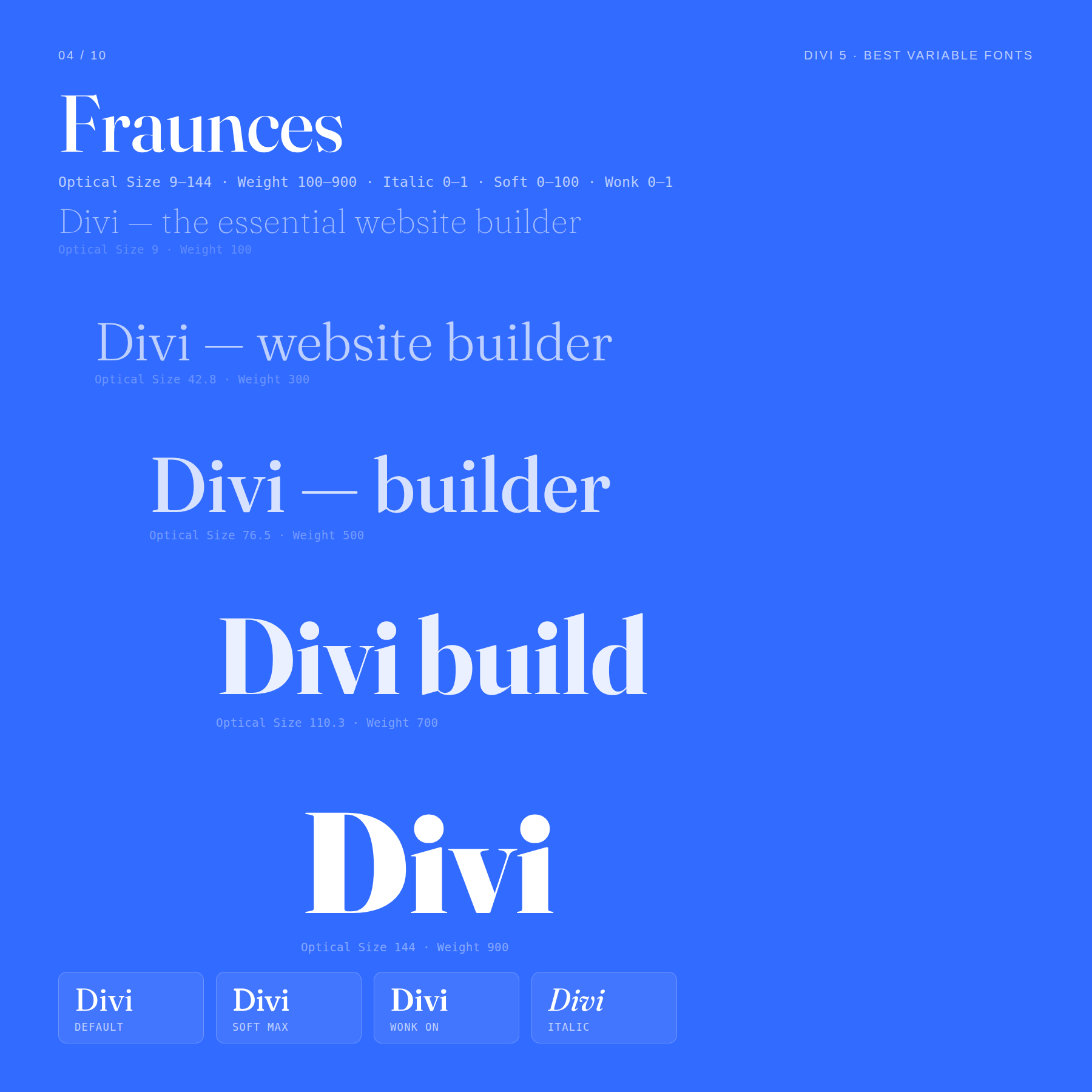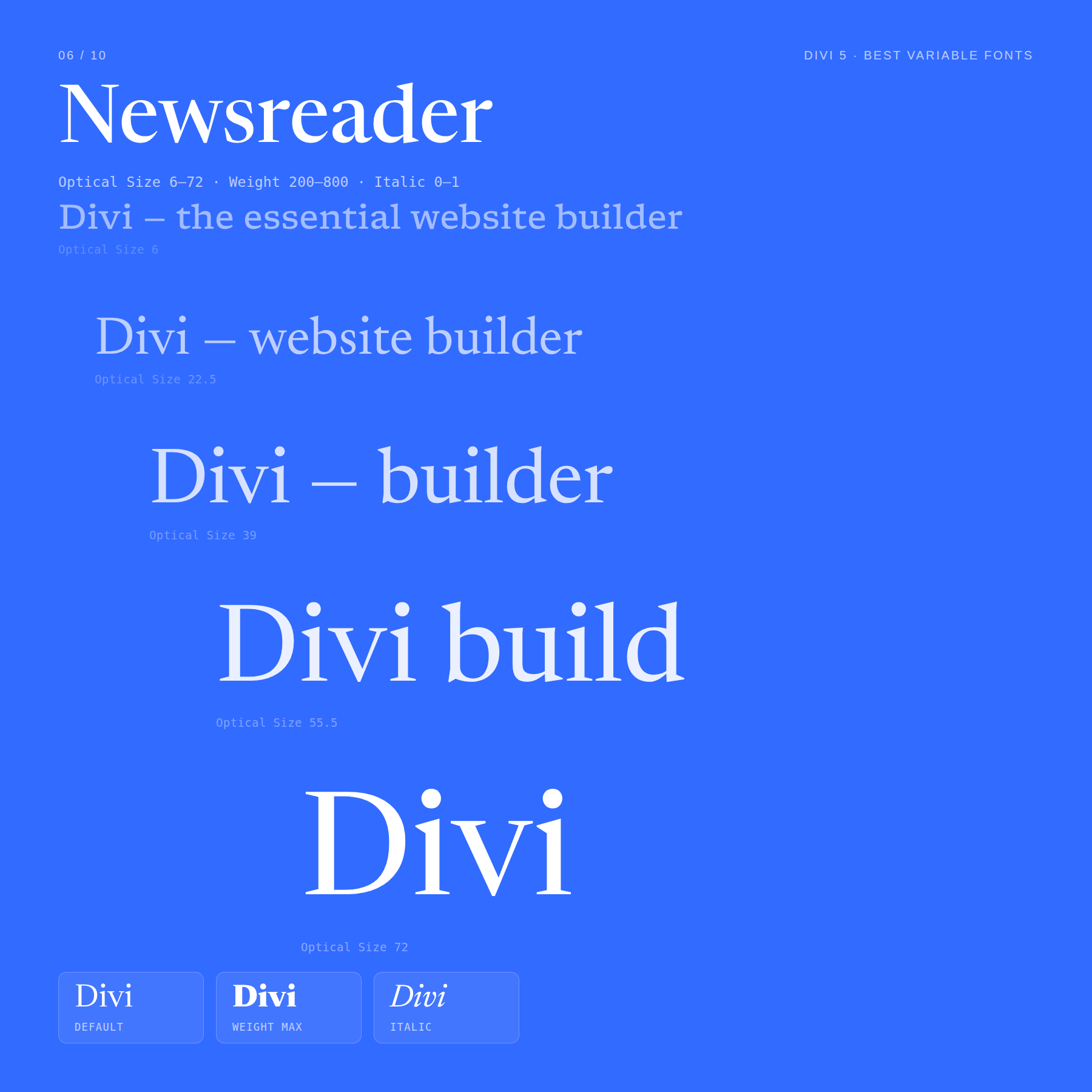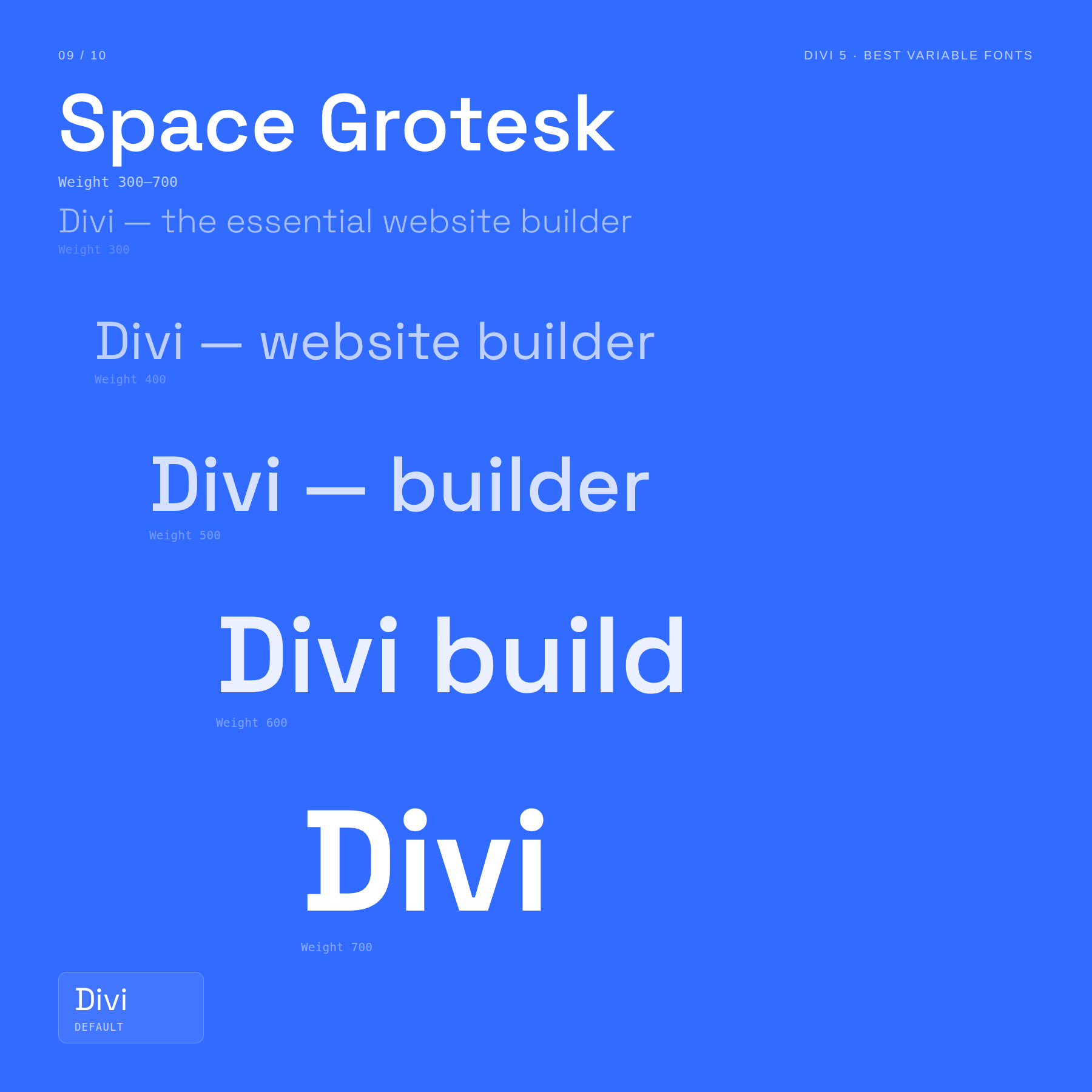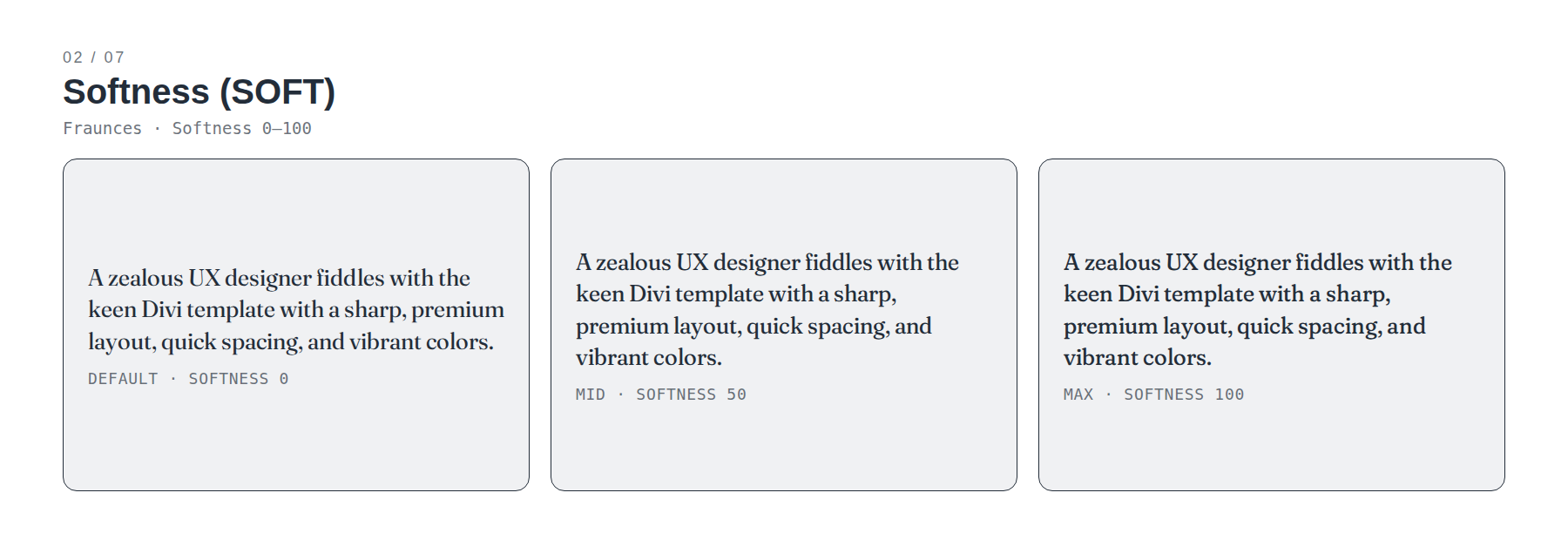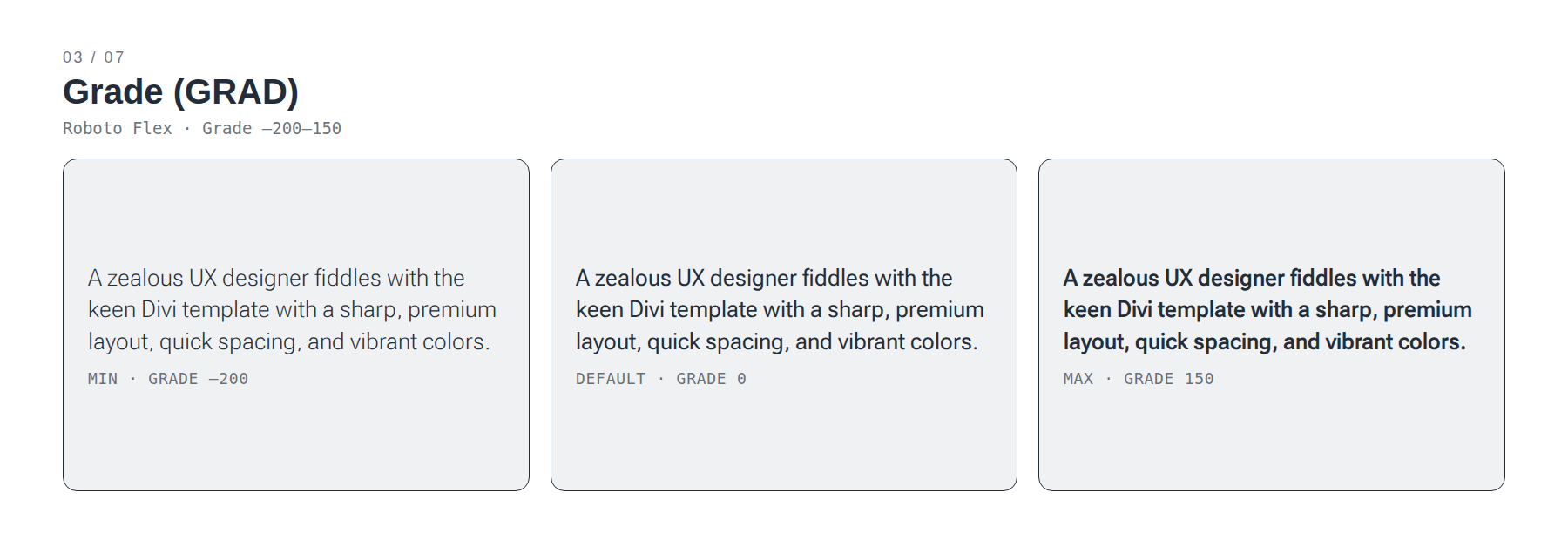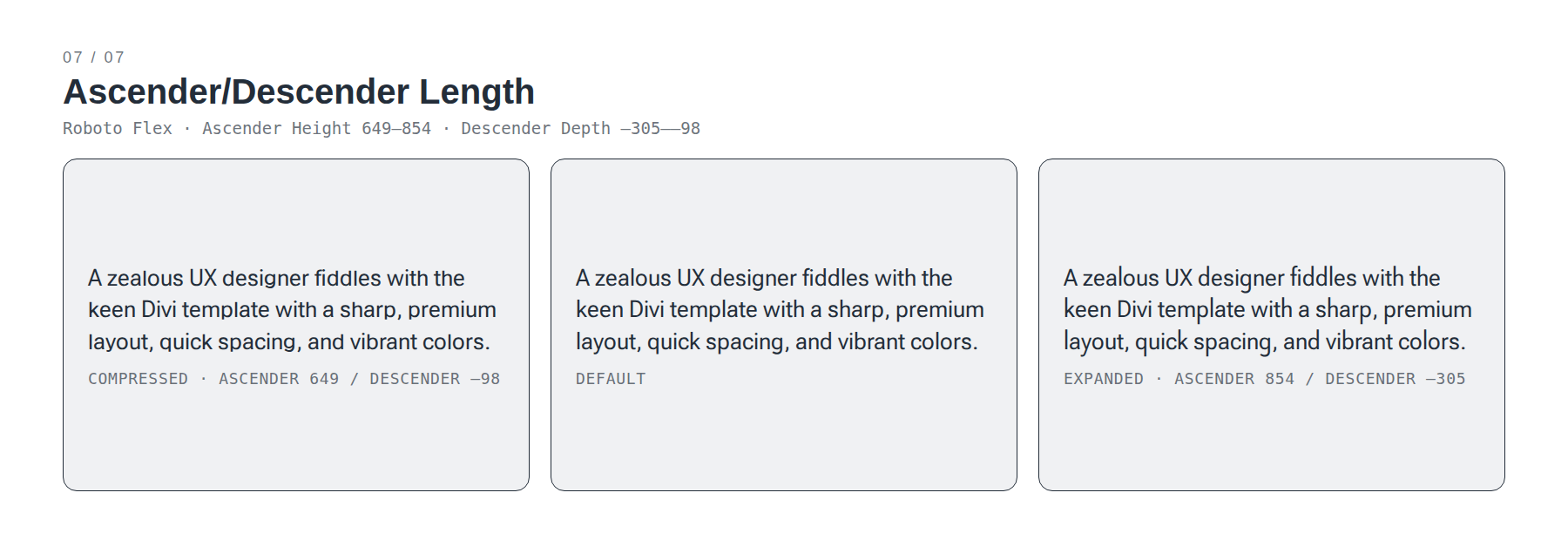
Have you ever ever used a variable font sooner than? A conventional font circle of relatives provides you with a set set of types: perhaps Gentle, Common, Medium, and Daring. If you wish to have one thing between Common and Daring, you in most cases want any other font report, and if that specific weight does no longer exist, you agree.
Variable font support in Divi 5 adjustments that. A unmarried variable font can comprise a spread of adjustable design axes, comparable to weight, width, slant, optical length, and once in a while extra experimental controls like casualness, softness, grade, or monospace.
That provides you with a lot more keep watch over over how typography feels throughout a website online. As an alternative of forcing an H2 into 400 or 700, you’ll be able to use a price like 535 if that balances higher together with your frame textual content. As an alternative of swapping fonts for a compressed headline, you’ll be able to alter width. As an alternative of the usage of the similar exhibit element at each length, you’ll be able to alter optical length.
Beneath are ten robust variable fonts you’ll be able to use in Divi 5, what each and every one allows you to alter, and the place each and every one suits highest in actual internet design initiatives.
1. Inter
Inter is without doubt one of the maximum sensible variable fonts for contemporary internet design. It was once designed for monitors, which makes it a robust selection for interfaces, dashboards, SaaS websites, product pages, documentation, and any format the place clarity issues at a number of sizes.
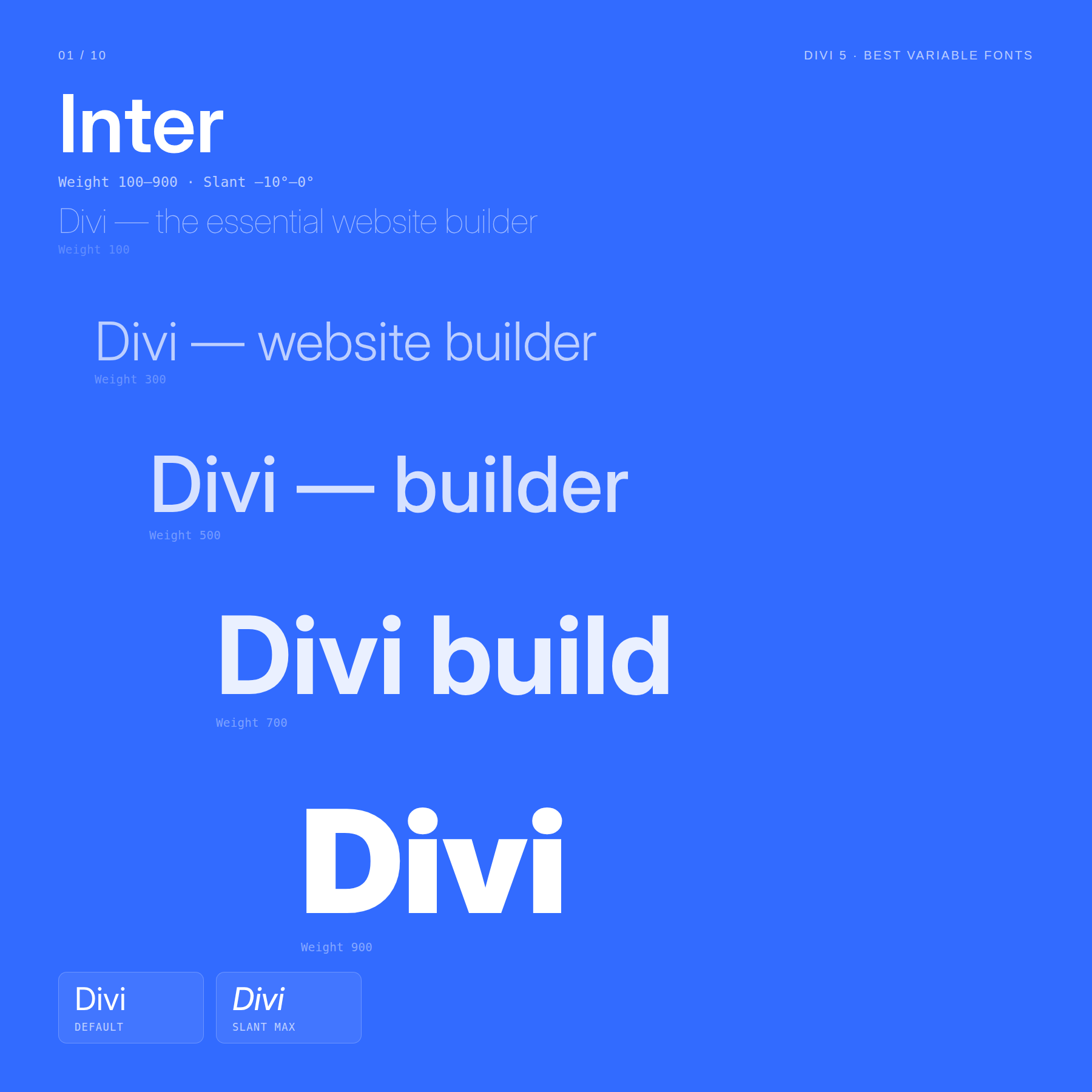
Two axes are particularly helpful:
- Weight: 100–900
- Slant: A managed slant axis that permits you to create angled textual content with out depending on a faux skew impact.
Inter’s weight vary makes it simple to construct a complete interface machine from one circle of relatives. Use lighter weights for captions, supporting labels, and dense UI textual content. Use medium weights for frame replica and navigation. Use heavier weights for hero headings, function titles, and callouts.
The Slant axis provides you with a secondary voice with out switching typefaces. A refined slant can paintings nicely for pull quotes, badges, labels, or brief emphasis textual content when italic styling would really feel too conventional.
Very best for: SaaS web pages, dashboards, product interfaces, documentation, startup web pages, and blank advertising pages.
2. Roboto Flex
Roboto Flex is without doubt one of the maximum versatile variable fonts within the Google Fonts library. It’s constructed to turn how some distance variable typography can move, with a large set of axes that keep watch over no longer simplest weight and width, but in addition smaller typographic main points.
Probably the most helpful axes to know are:
- Weight: 100–1000
- Width: Controls how condensed or prolonged the letters seem.
- Optical Dimension: Adjusts the design for smaller or greater textual content sizes.
- Slant: Provides angled letterforms.
- Grade: Adjustments visible density with out converting the width of the textual content.
Grade is particularly helpful for interface design. You’ll be able to make textual content really feel somewhat darker or lighter with out converting the gap it takes up, which is helping when adjusting textual content for hover states, darkish sections, or high-density UI spaces.
Roboto Flex additionally contains parametric axes that fine-tune stroke thickness and letter proportions. You’ll no longer want the ones on each venture, however they make the font surprisingly adaptable when you wish to have one sort machine to maintain many contexts.
Very best for: advanced design programs, app interfaces, dashboards, technical websites, accessibility-conscious UI paintings, and layouts that want actual sort keep watch over.
3. Recursive
Recursive is without doubt one of the maximum fascinating fonts in this listing as a result of it could actually shift persona dramatically with out leaving the similar font circle of relatives.
It will probably behave like a blank sans-serif, a monospace code font, or a extra informal exhibit typeface relying on how you put its axes.
4 axes are particularly necessary:
- Weight: 300–1000
- Slant: Provides angled emphasis.
- Informal: Strikes the sort from extra formal to extra expressive.
- Monospace: Strikes the sort from proportional spacing to fixed-width spacing.
At decrease Informal values, Recursive can paintings as a structured sans-serif for interfaces and technical layouts. Building up Informal, and the similar font turns into hotter, looser, and extra expressive. Building up Monospace, and it begins to really feel suitable for code snippets, knowledge labels, technical specifications, or developer-facing content material.
That makes Recursive helpful when a website online wishes each a sophisticated interface voice and a extra playful or technical layer with out uploading separate fonts.
What’s the distinction between Informal and Wonk?
Informal adjustments the entire temper of the font. Wonk adjustments particular letters’ shapes.